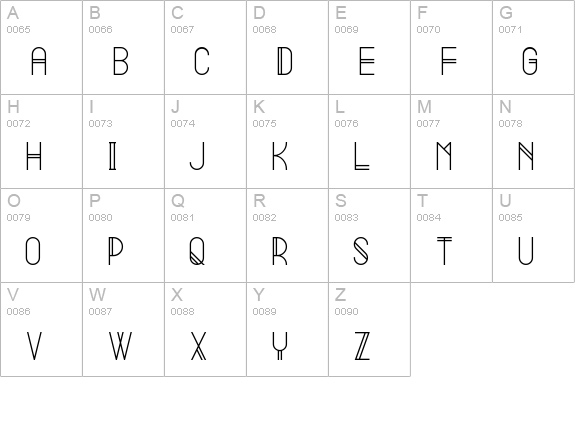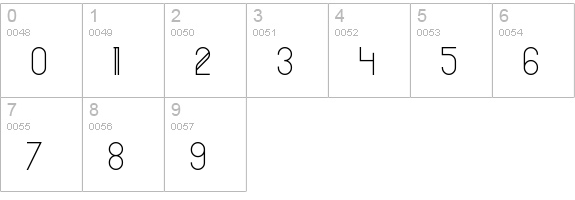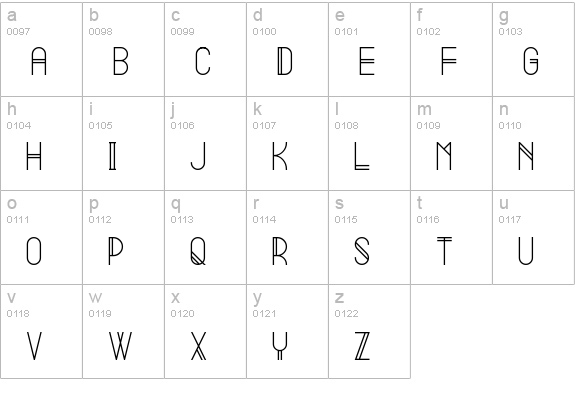
Summer font is a delightful and whimsical typeface that captures the essence of the warm and sunny season. Its playful curves and flowing lines evoke feelings of joy and relaxation, making it perfect for a wide range of design projects. Whether you're creating invitations for a summer party, designing social media graphics, or crafting a cheerful logo, Summer font is sure to bring a touch of sunshine to your work.